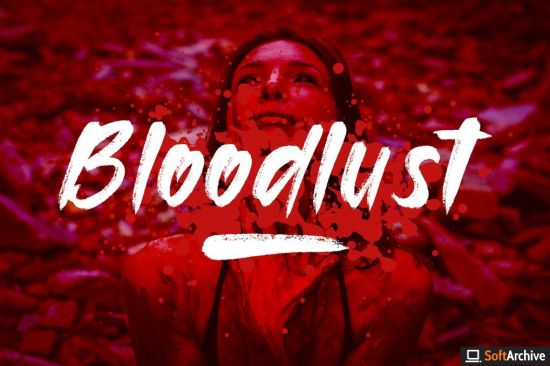
DesignOptimal - Bloodlust Font
DesignOptimal.com - Bloodlust Font
This font is cool for branding, Birthday invites, Esport theme, Mugs, Business Cards, Quotes, Posters, and many more.